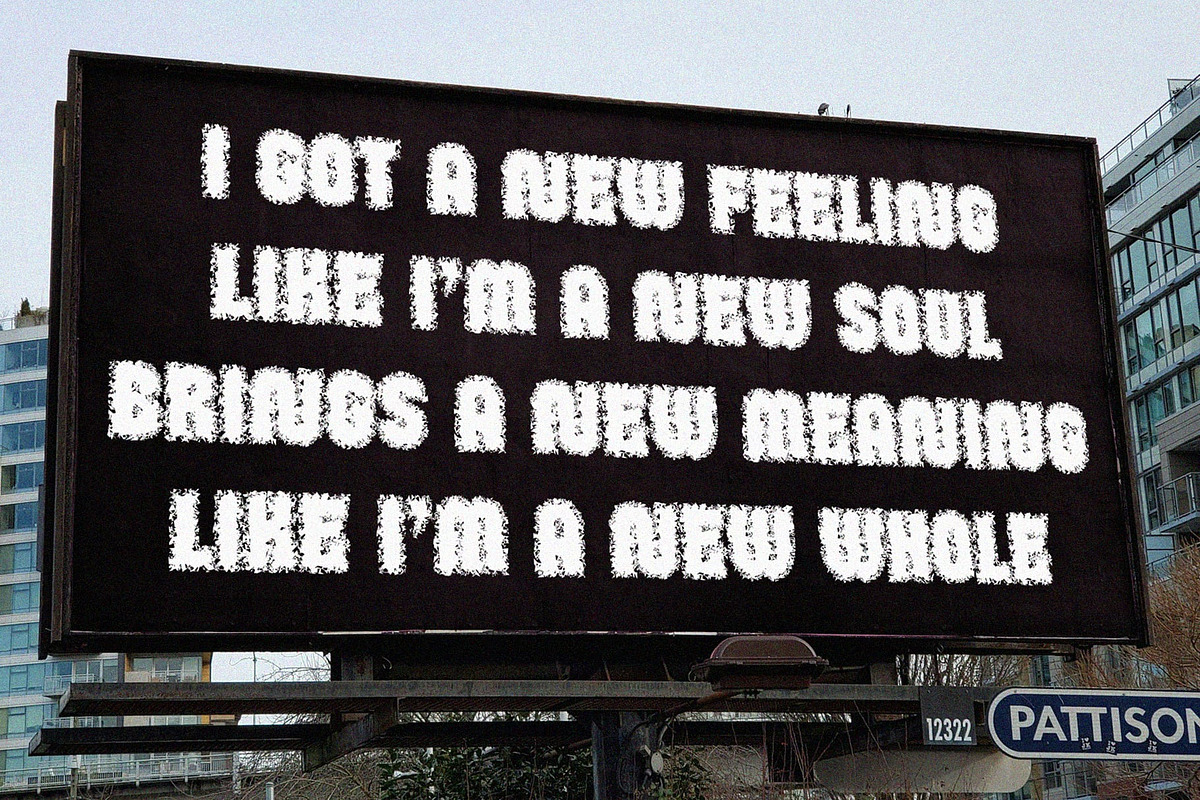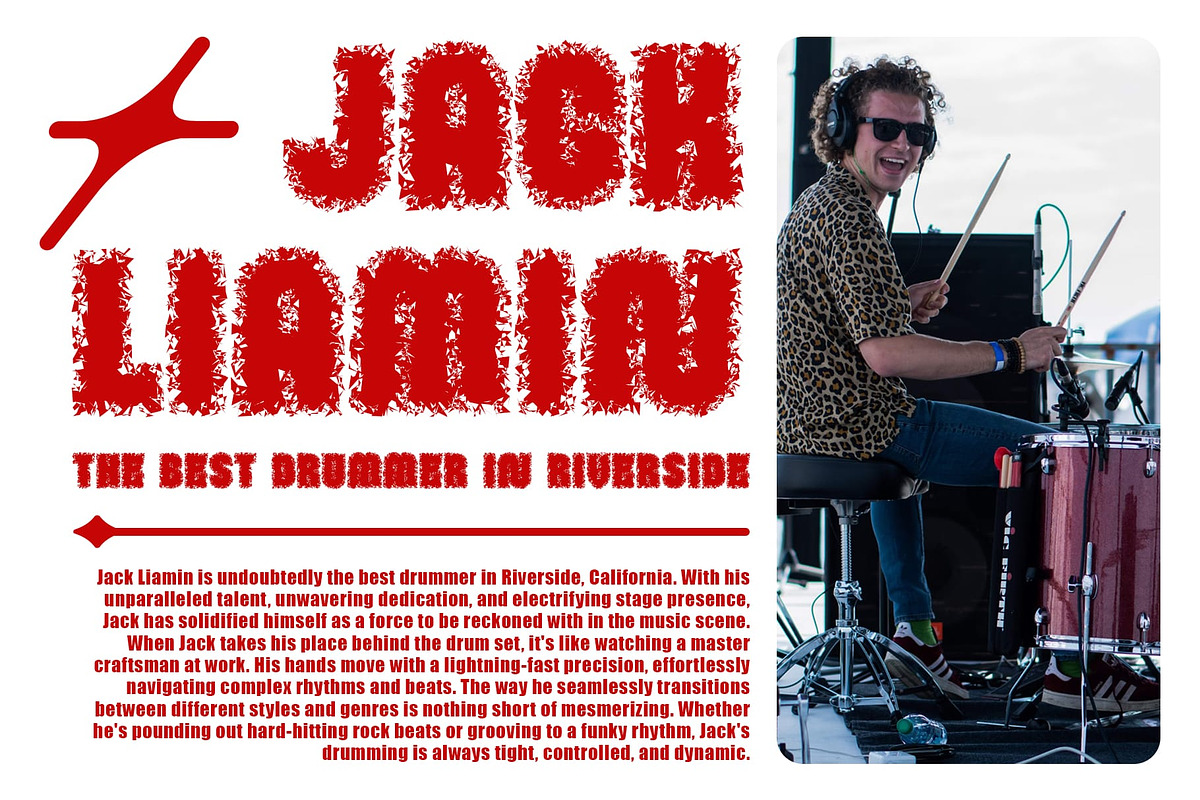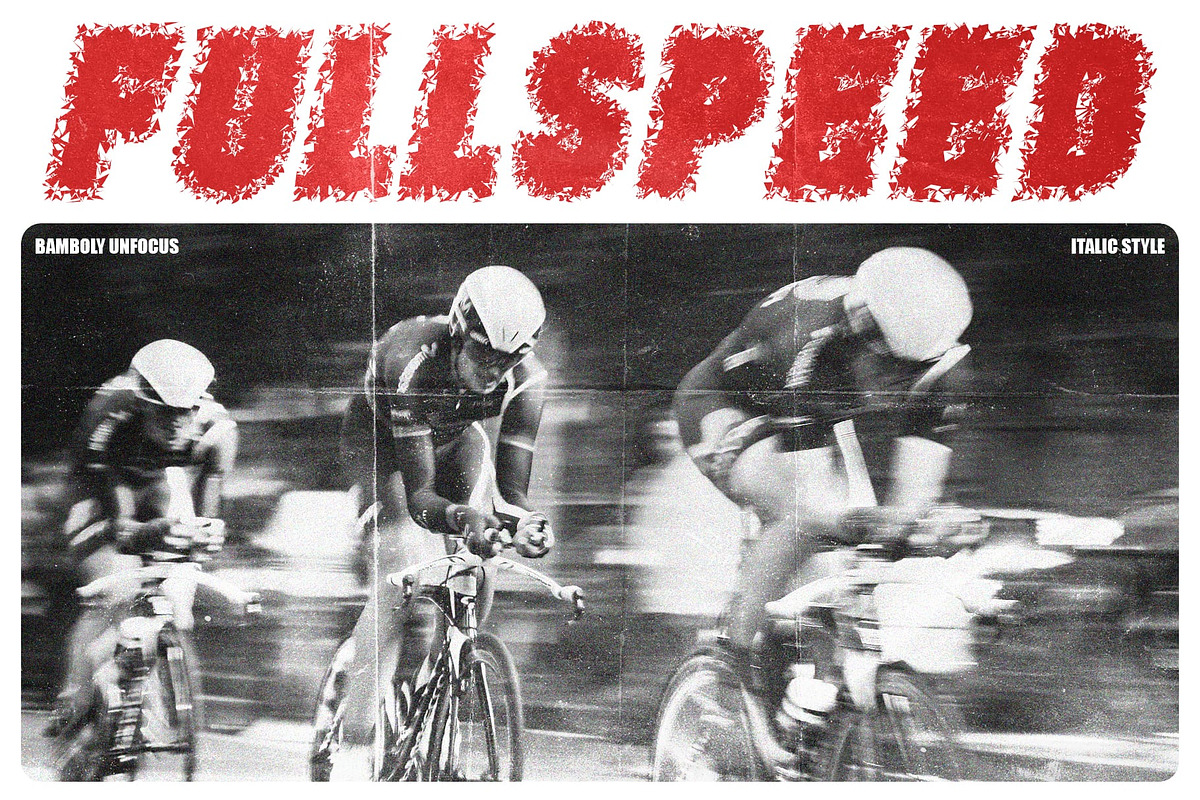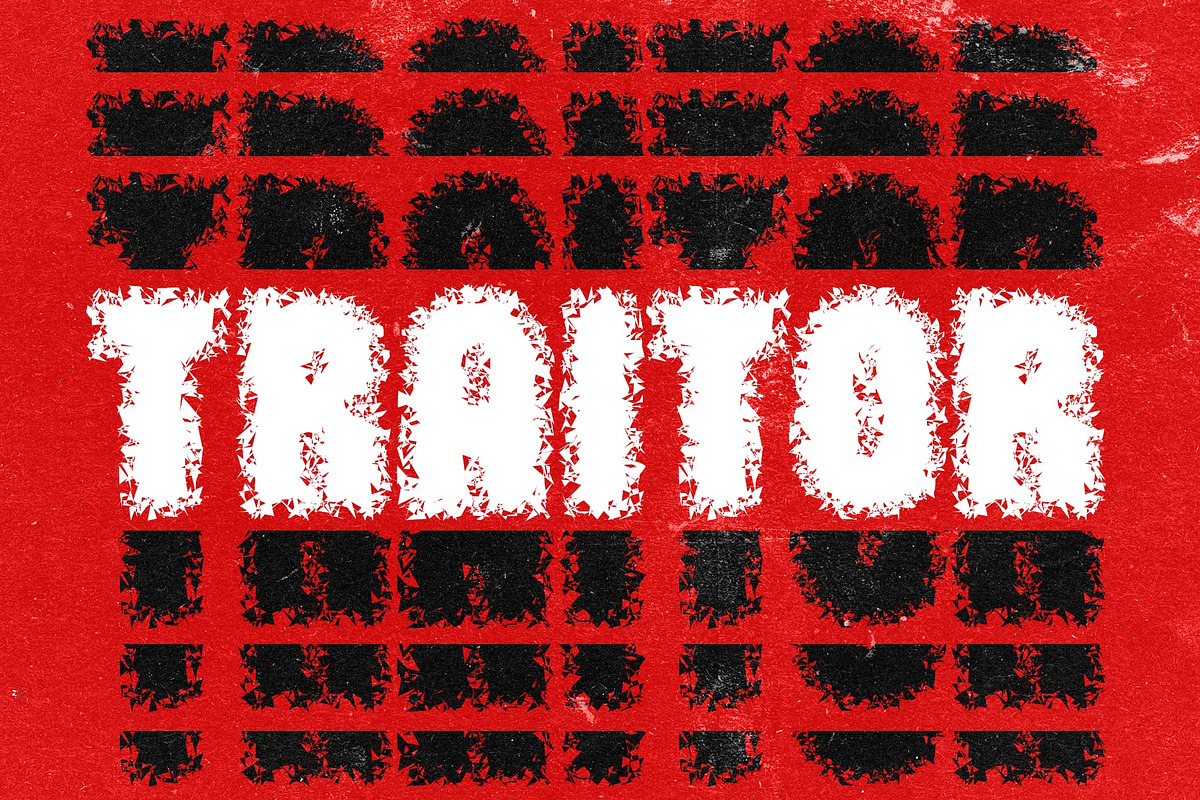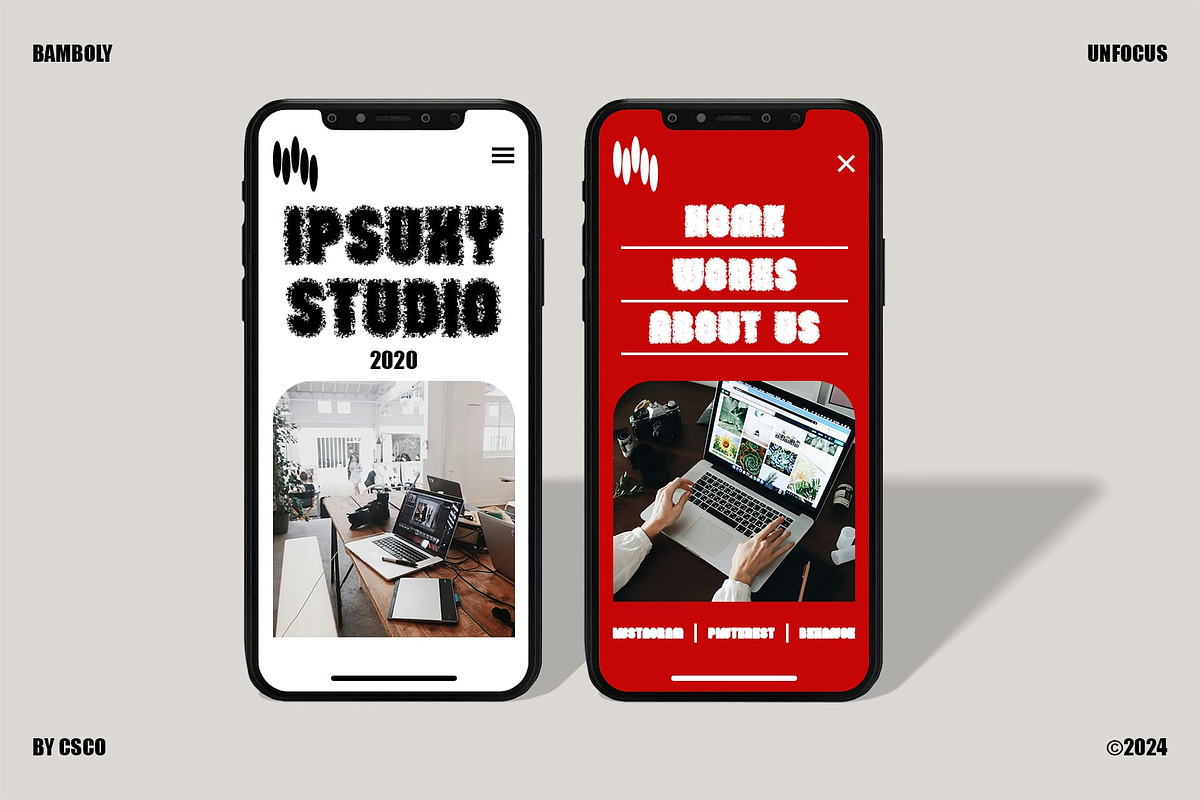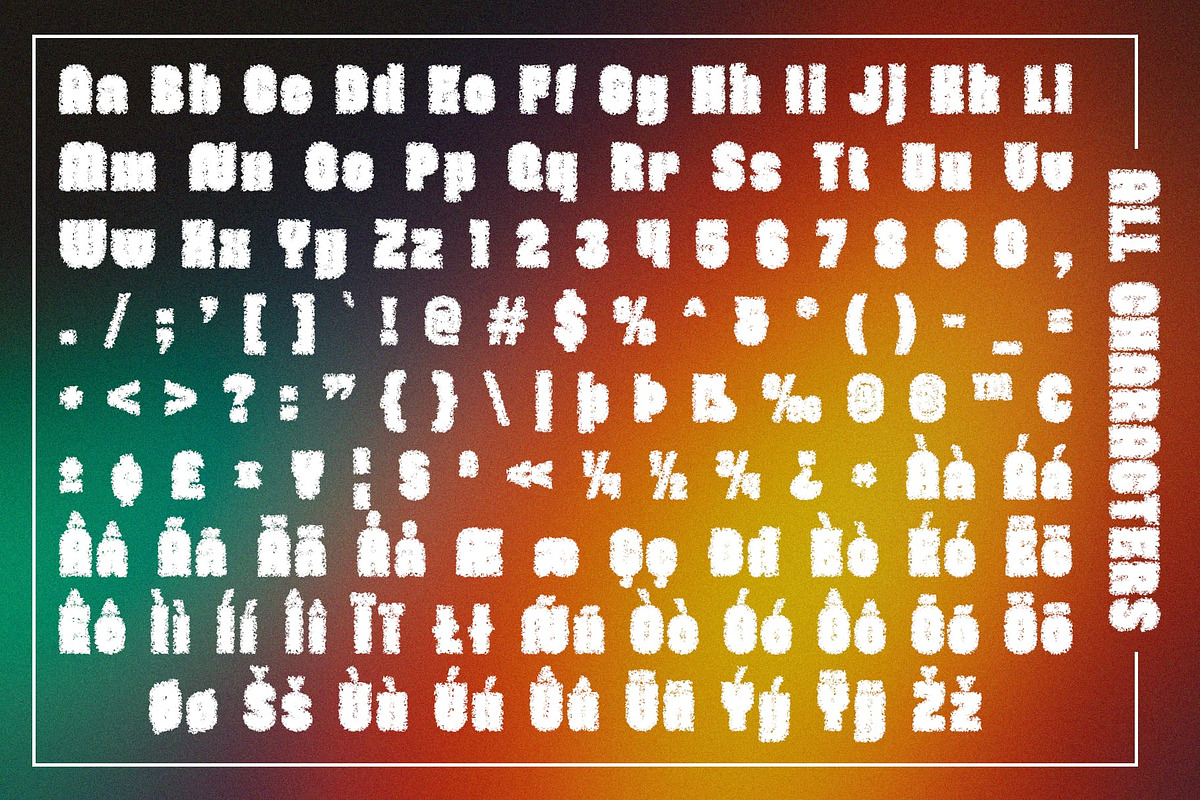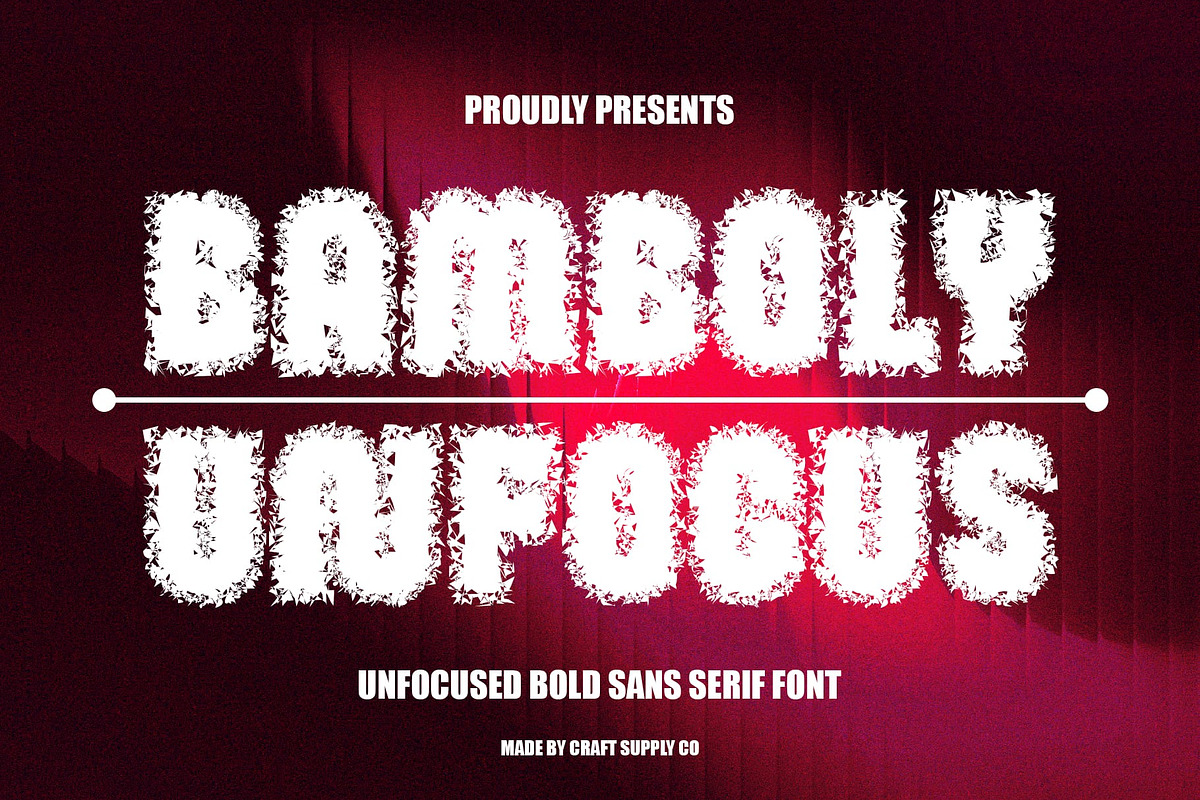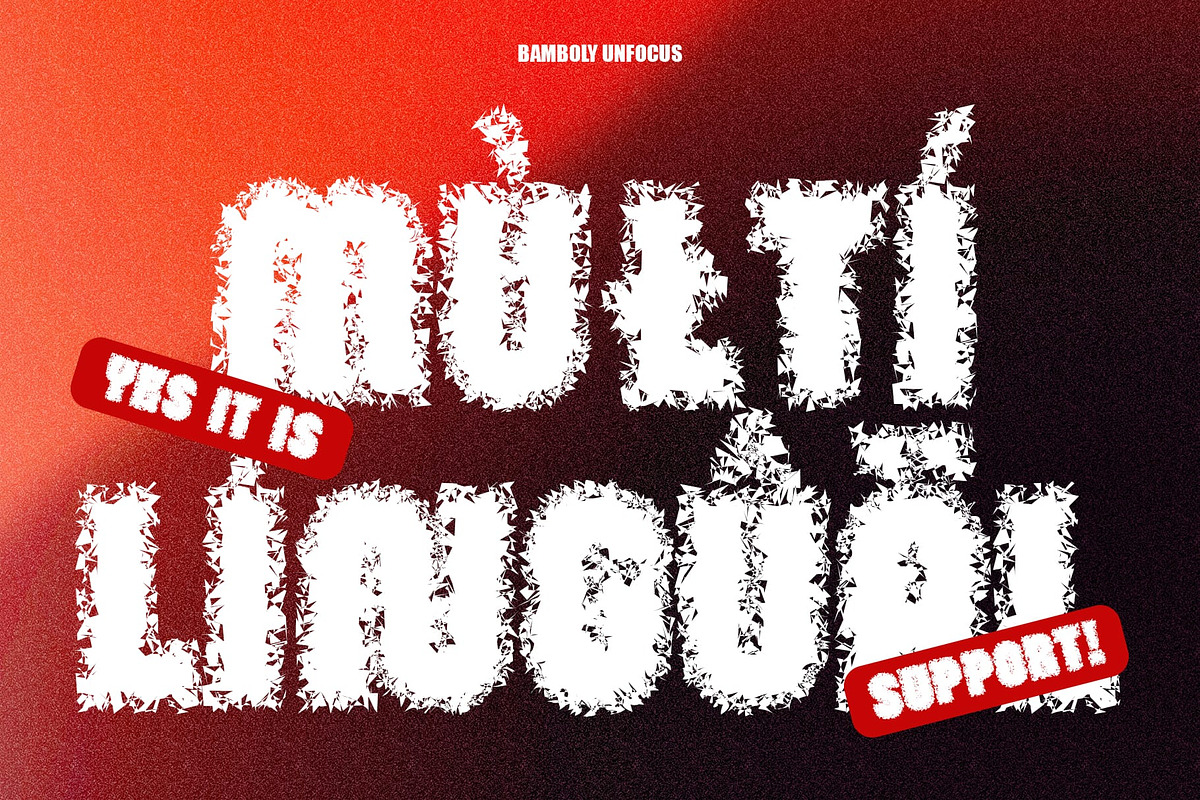
Bamboly Unfocus
Bamboly Unfocus: Redefining Modern Design with Bold Sophistication
Bold Sans Serif Font with Unfocus Effect
Bamboly Unfocus is a bold sans serif font that sets a new standard in modern design with its clean and striking presence. The unfocus effect adds an intriguing artistic touch, enhancing readability while making the font visually captivating.
Clean and Striking Presence
The bold and clear lines of Bamboly Unfocus ensure a strong visual impact, making it ideal for designs that demand attention. Whether used for posters, headlines, or branding materials, this font ensures your message is delivered with clarity and style.
Innovative Unfocus Touch
The unfocus effect brings a unique artistic dimension to Bamboly Unfocus, elevating its modern design. This blend of boldness and artistic flair makes the font stand out in any creative project, adding depth and interest to your designs.
Perfect for Strong Impressions
Bamboly Unfocus is perfect for designs that require a strong and innovative impression. Its versatility and bold presence make it suitable for a wide range of applications, from promotional materials to digital interfaces, where readability and visual impact are paramount.
Make a Statement with Bamboly Unfocus
Choose Bamboly Unfocus to redefine modern design with its bold sophistication and innovative unfocus effect. Whether creating posters, headlines, or branding materials, this font ensures your designs leave a lasting impression with their clean, striking presence.